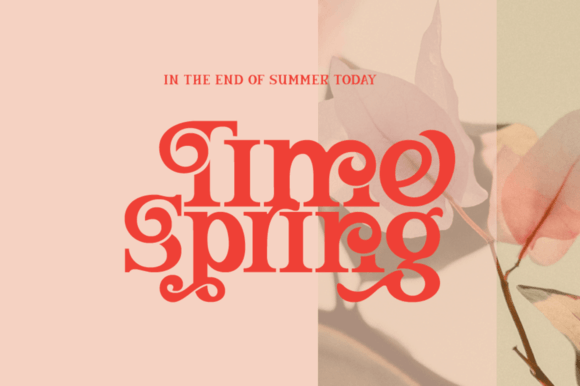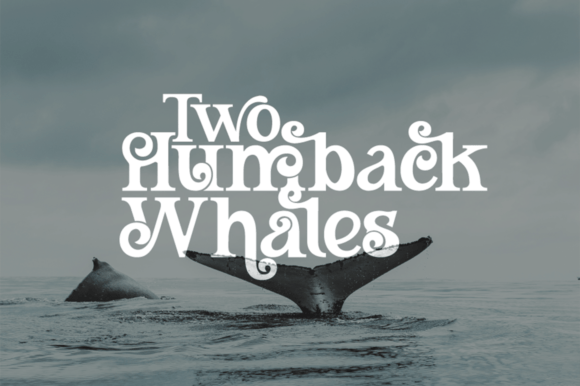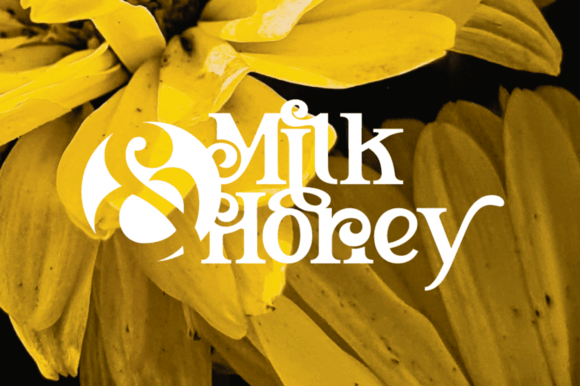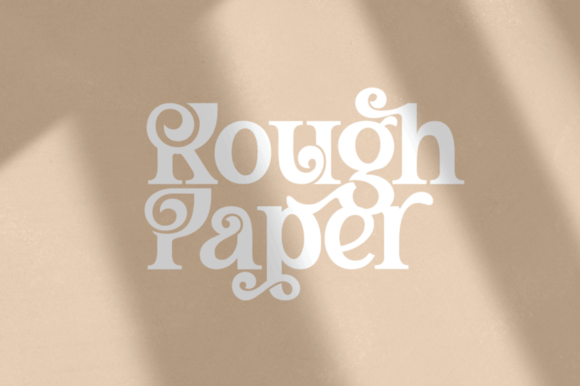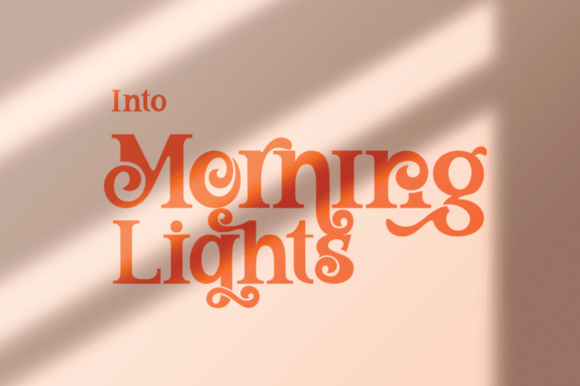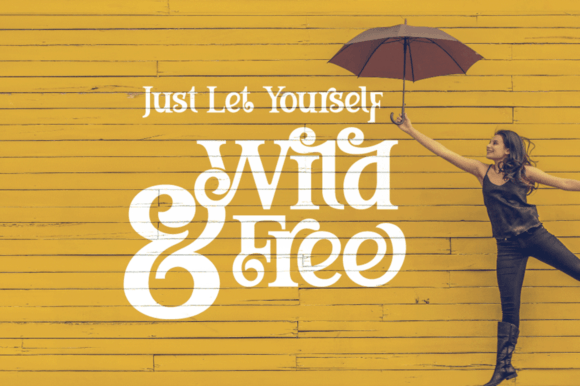
Introducing Bitline Font: A Bold Swirly Typeface for Modern Vintage Designs
Are you a designer or crafter looking for a unique and modern vintage font to elevate your creative projects? Look no further than Bitline Font, a bold swirly typeface that is sure to make a statement. With its adaptable design and extensive range of alternate styles, ligatures, and glyphs, Bitline Font is the perfect choice for a wide range of applications, from magazine headers and wedding invitations to branding designs, posters, and flyers.
What Makes Bitline Font So Special?
Bitline Font is a one-of-a-kind typeface that boasts a bold, swirly design with a modern vintage look. Its unique style is sure to capture attention and add a touch of elegance to any project. But what really sets Bitline Font apart is its extensive range of features, including:
- Alternate styles for each glyph: With multiple alternate styles to choose from, you can mix and match to create a truly unique look that suits your project’s needs.
- Ligatures: Add a touch of sophistication to your designs with Bitline Font’s ligatures, which allow you to create beautiful, flowing text.
Endless Design Possibilities with Bitline Font
Bitline Font is an incredibly versatile typeface that can be used for a wide range of design projects, including:
- Magazine headers: Add a bold, eye-catching title to your magazine or publication with Bitline Font.
- Wedding invitations: Make your wedding invitation truly special with a custom design featuring Bitline Font.
- Branding design: Create a unique and memorable brand identity with Bitline Font’s bold, swirly design.
- Poster and flyer headers: Grab attention with a bold, eye-catching header featuring Bitline Font.
- Logo taglines: Add a touch of elegance to your logo with Bitline Font’s ligatures and alternate styles.
Why Choose Bitline Font?
With so many fonts on the market, why choose Bitline Font? Here are just a few reasons why designers and crafters are falling in love with this amazing typeface:
- Unique and modern vintage look: Bitline Font’s bold, swirly design is sure to make your projects stand out from the crowd.
- Adaptable design: Whether you’re working on a magazine header or a wedding invitation, Bitline Font’s adaptable design ensures that it will look great in any context.
Get Creative with Bitline Font
If you’re looking for a font that will take your designs to the next level, look no further than Bitline Font. With its unique and modern vintage look, extensive range of features, and adaptable design, Bitline Font is the perfect choice for designers and crafters who want to create something truly special.